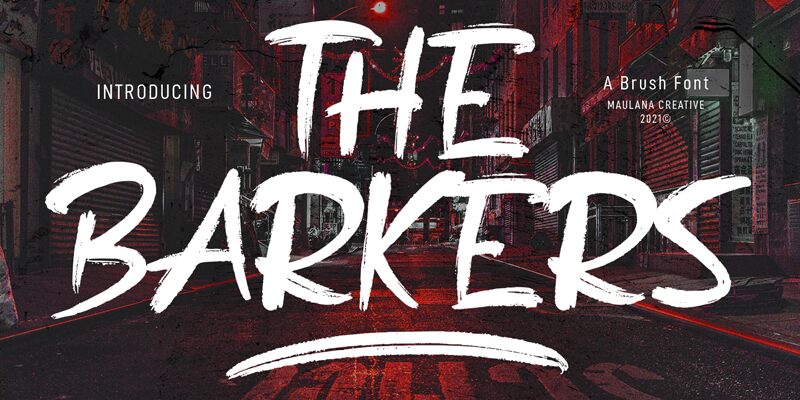
The Barkers Free Regular
The Barkers, a stunning brush typeface designed by Maulana Creative, is the perfect choice for any project looking to add a touch of personality and creativity. With its semi-expanded width, this semi-bold font offers a balance between legibility and impact. Its playful curves and organic strokes give your designs an authentic hand-drawn feel that instantly captures attention. Ideal for branding, packaging, social media graphics, or any project that needs a little extra flair. Whether you're designing for a trendy coffee shop or a quirky clothing brand, The Barkers will make your designs stand out from the crowd.